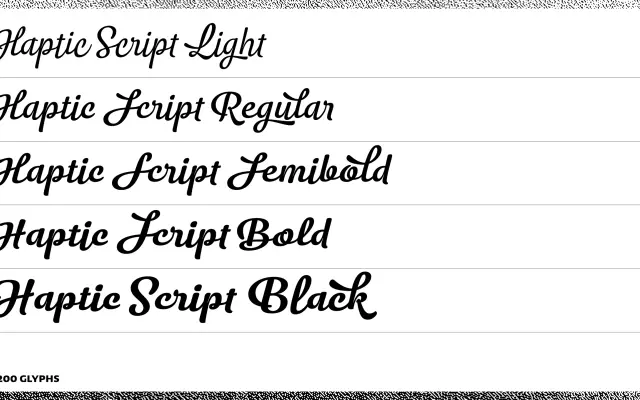
HapticScript
Character Type · Henning Skibbe
A connected brush script in five weights with up to 14 glyph variants per character, designed by Henning Skibbe as a companion to the Haptic sans-serif family.
Each font contains nearly 2,000 characters, including over 40 ligatures and multiple swash variants for initials and word endings, allowing designers to vary individual words and avoid mechanical repetition. The five weights from Light to Black give the family a broader range than most brush scripts, making it usable across both delicate and bold-weight applications. Designed as a companion to the Haptic sans-serif, it sits naturally alongside that family in mixed-setting work.
A connected brush script with warm, flowing letterforms across five weights; designed explicitly as a companion to the Haptic sans-serif family.